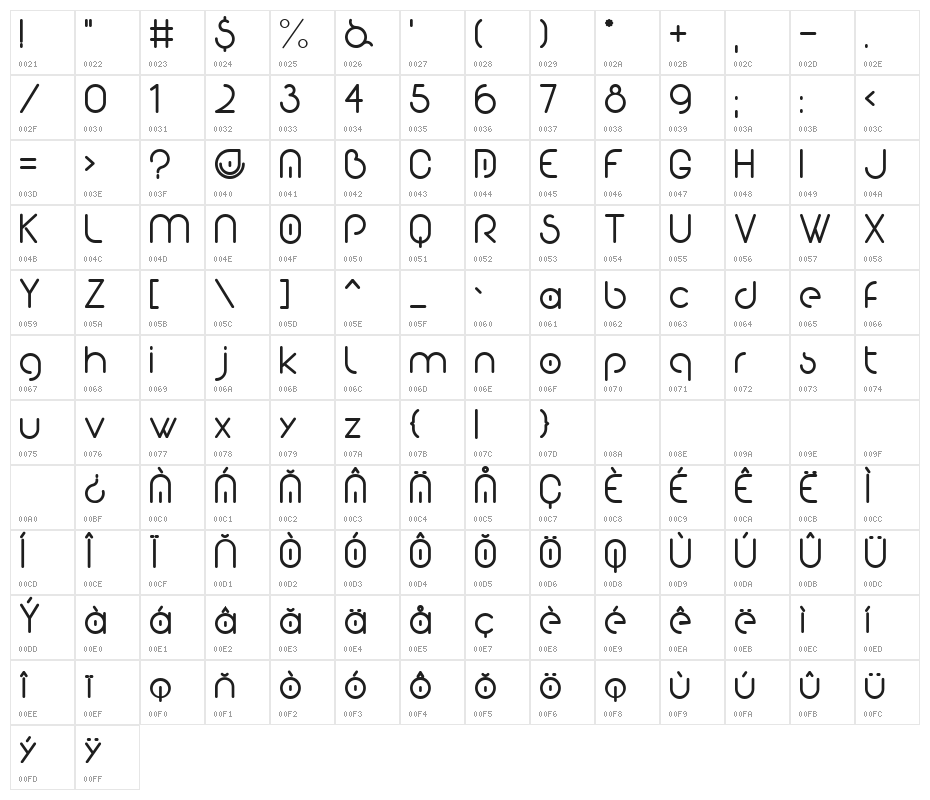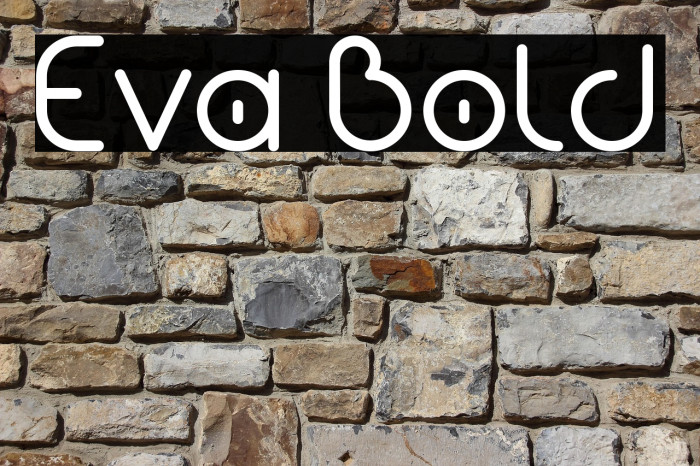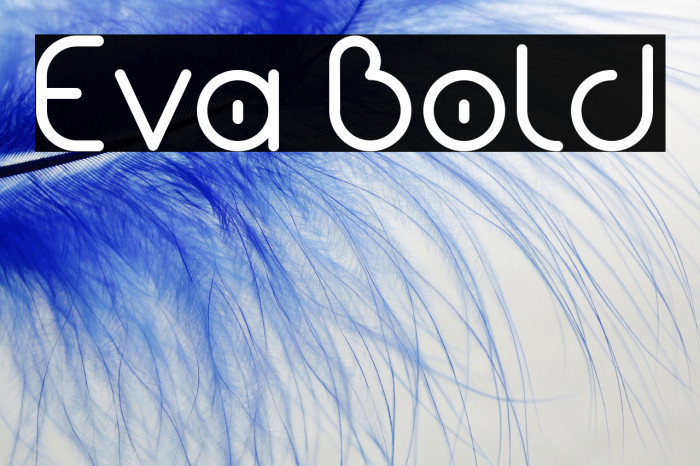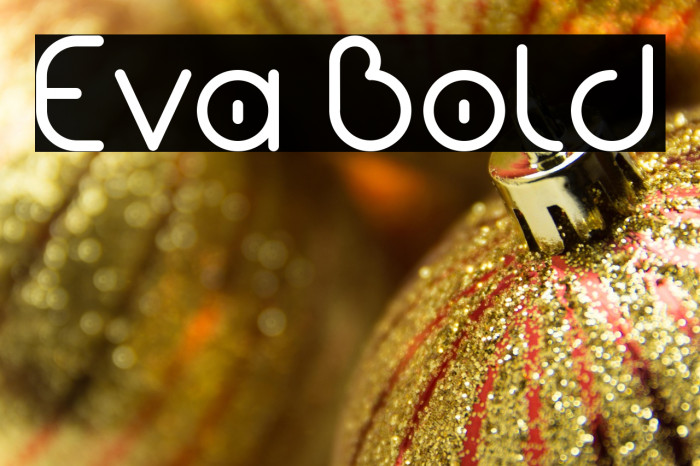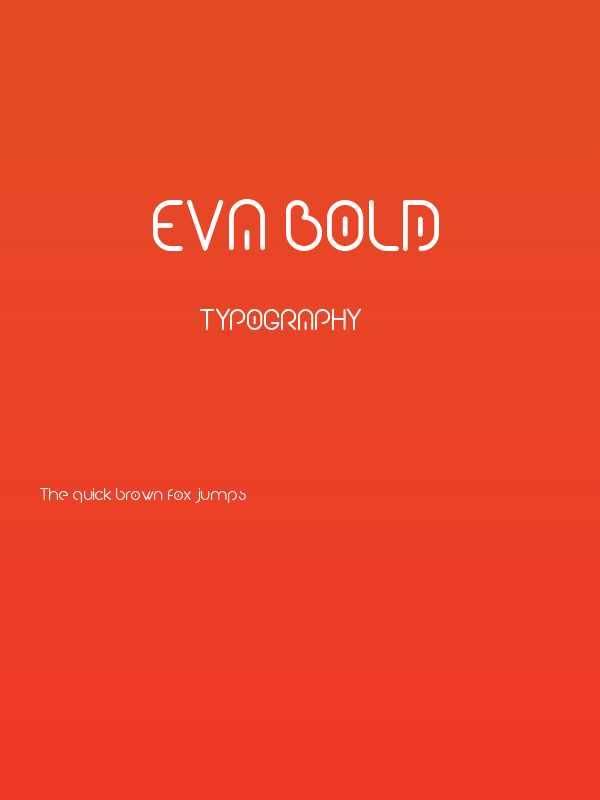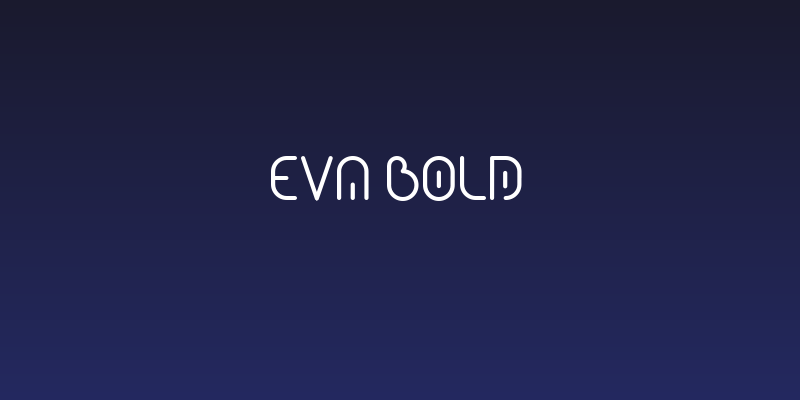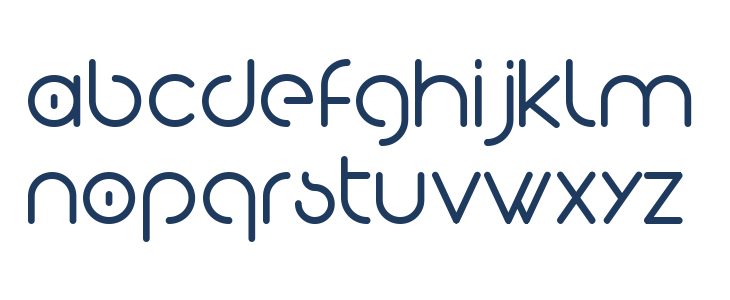
Eva Bold Font
Eva Bold Description
This font features a modern, geometric design with rounded edges and a clean, minimalist aesthetic. The characters are constructed with consistent stroke widths, giving it a uniform appearance. The uppercase letters are bold and striking, while the lowercase letters maintain a similar style with a slightly softer touch. The numerals are clear and easy to read, complementing the overall design. Special characters are uniquely styled, maintaining the font's cohesive look. This font is well-suited for contemporary design projects that require a sleek and stylish typeface.